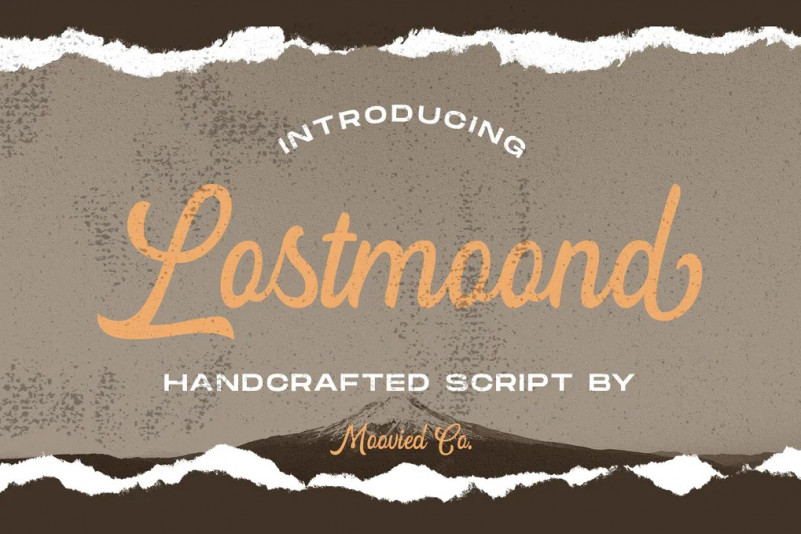
Lostmoond Font
Lostmoond Script a lovely Signature font, This is perfect for invitations, signatures, blogs, social media, business cards, product brands, etc.